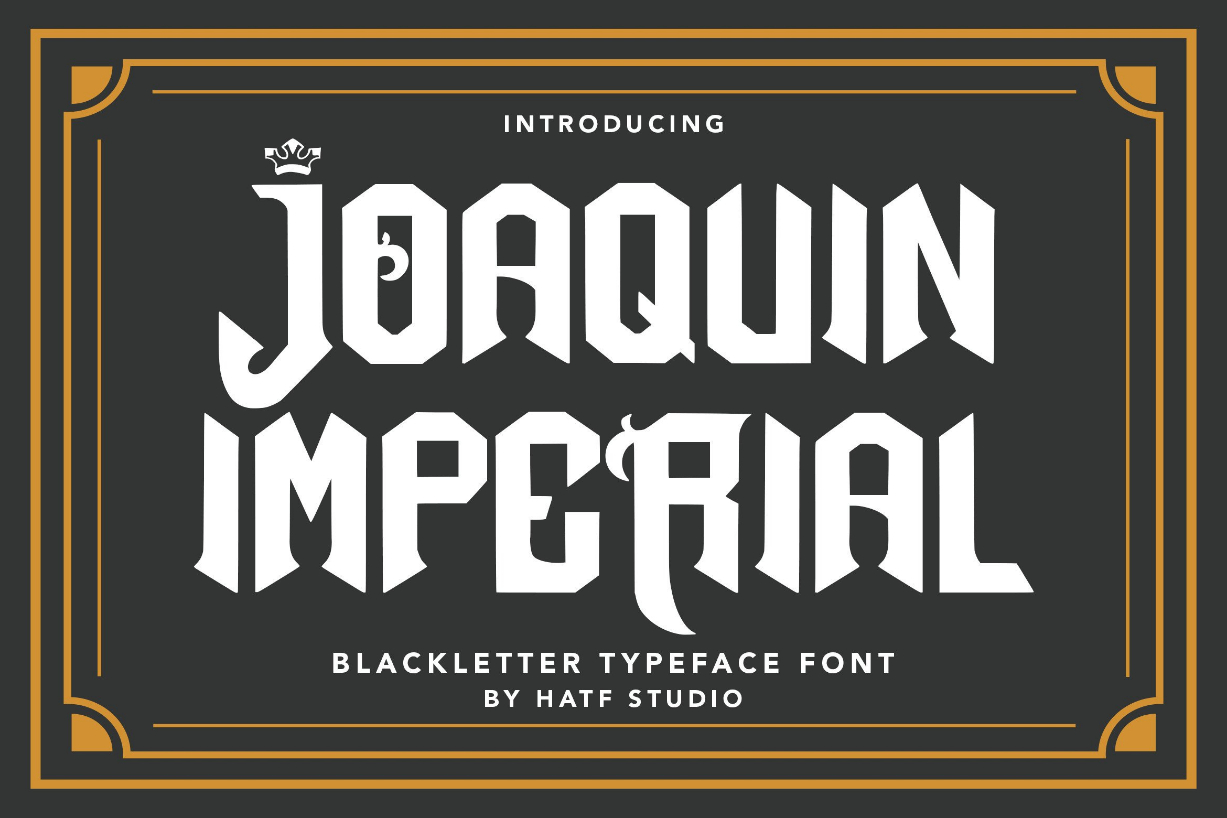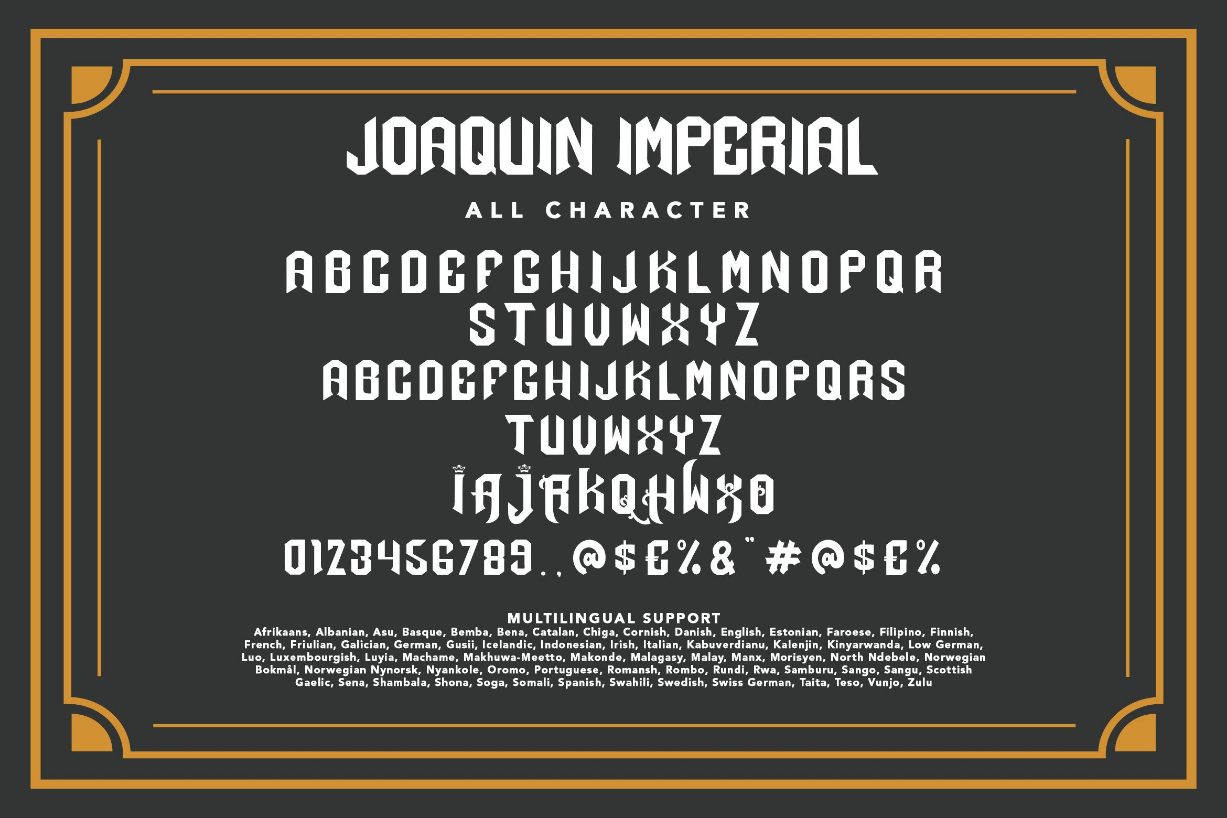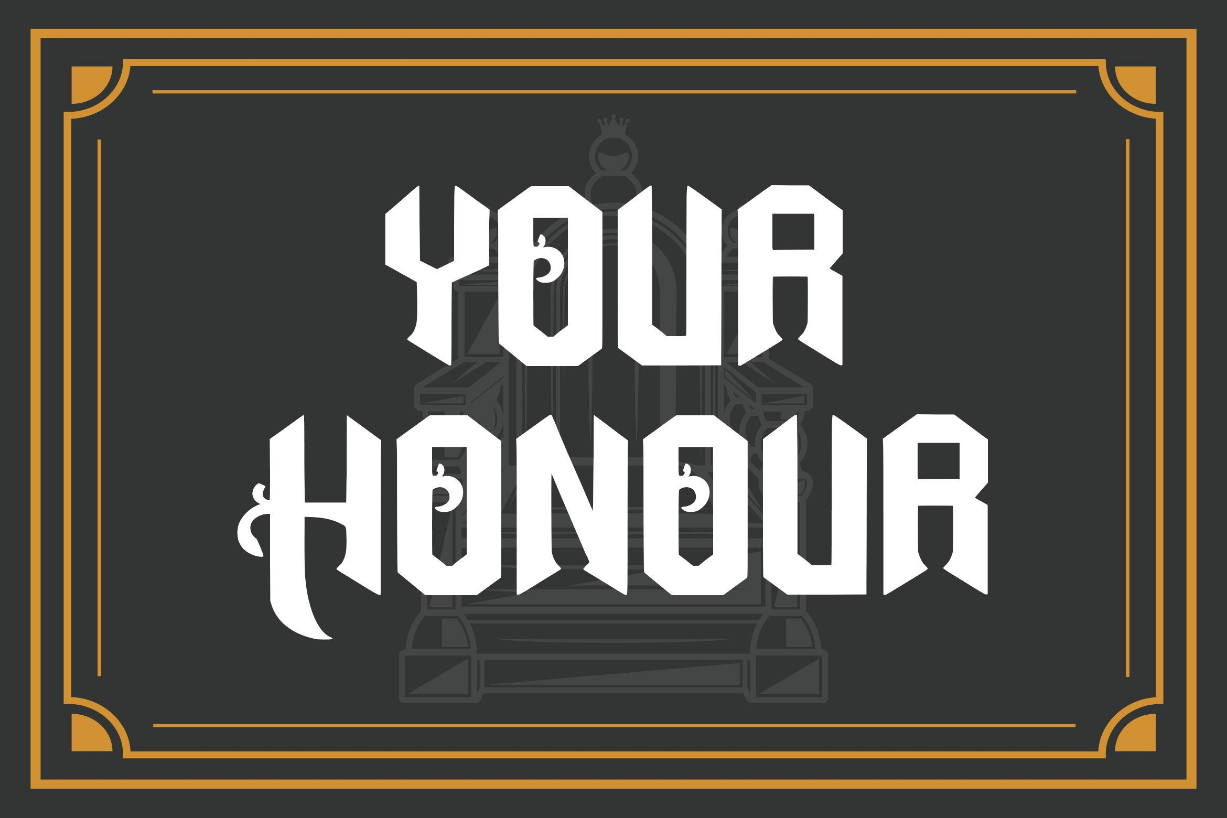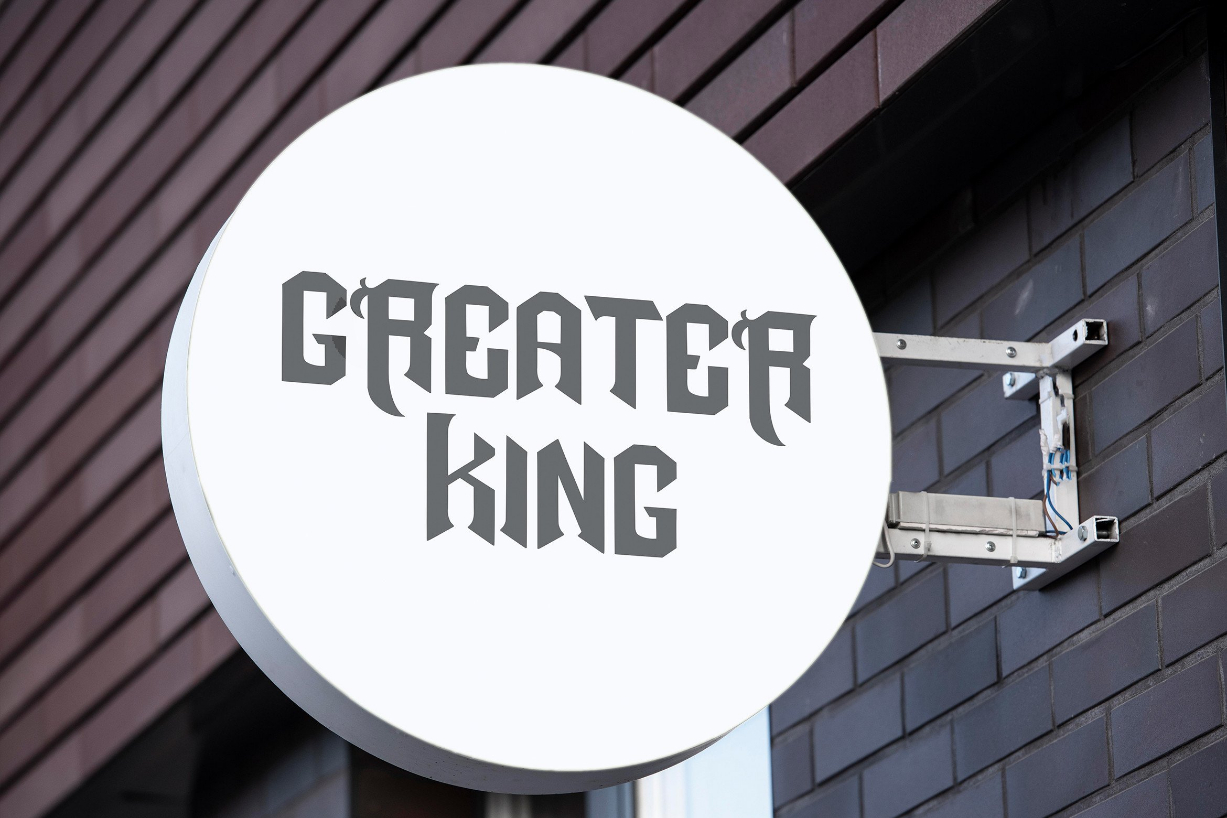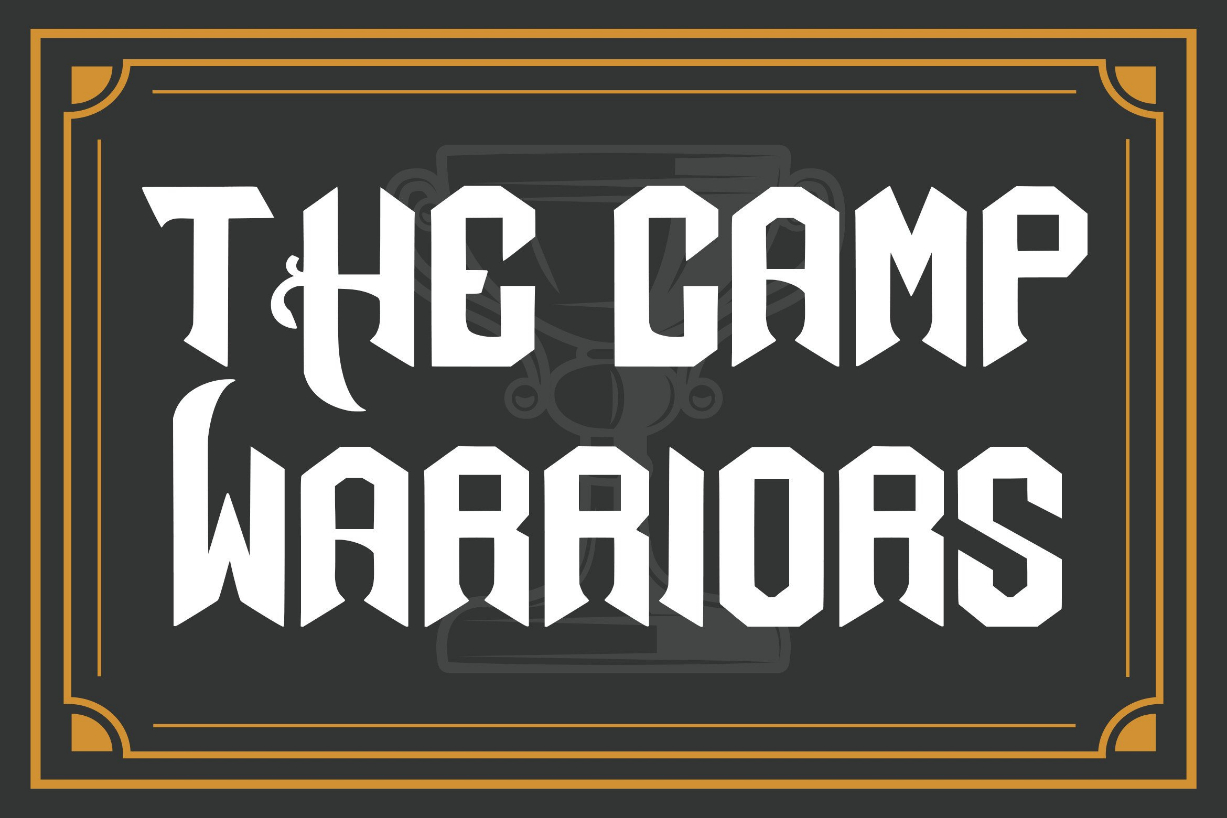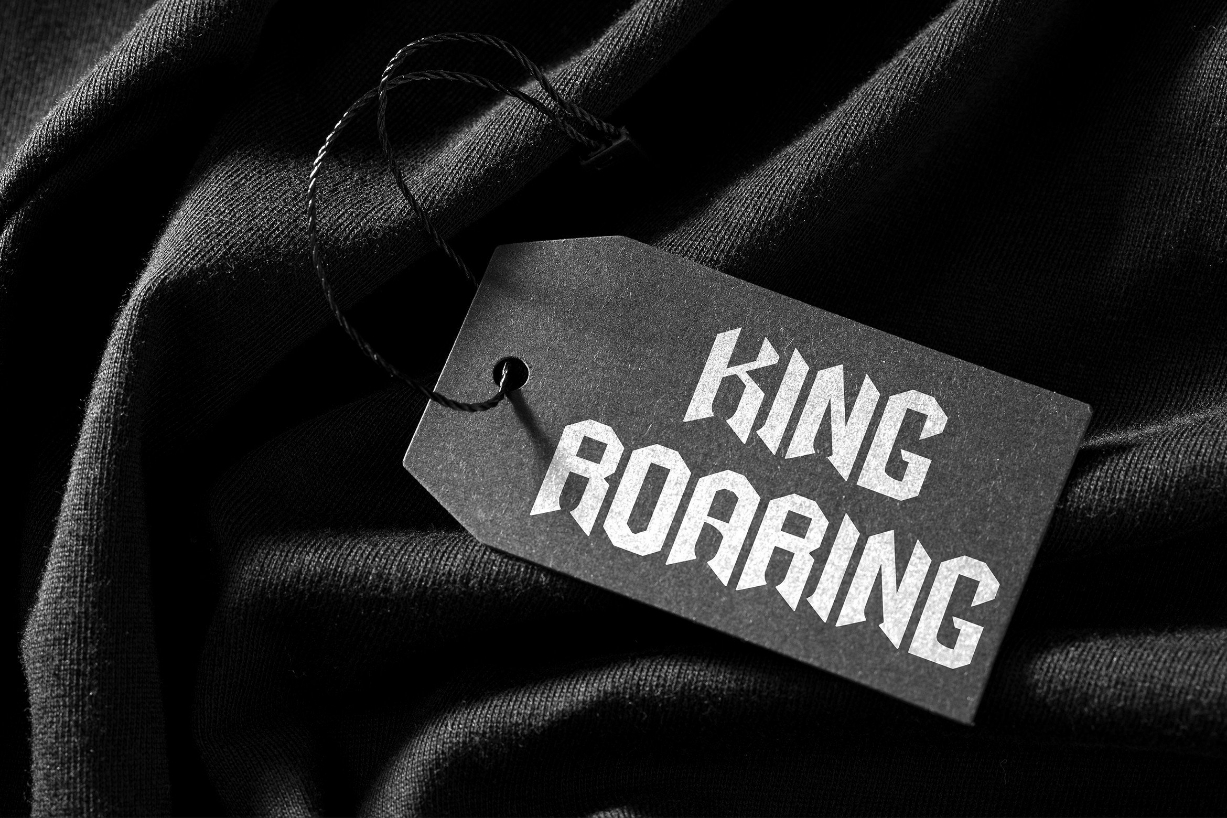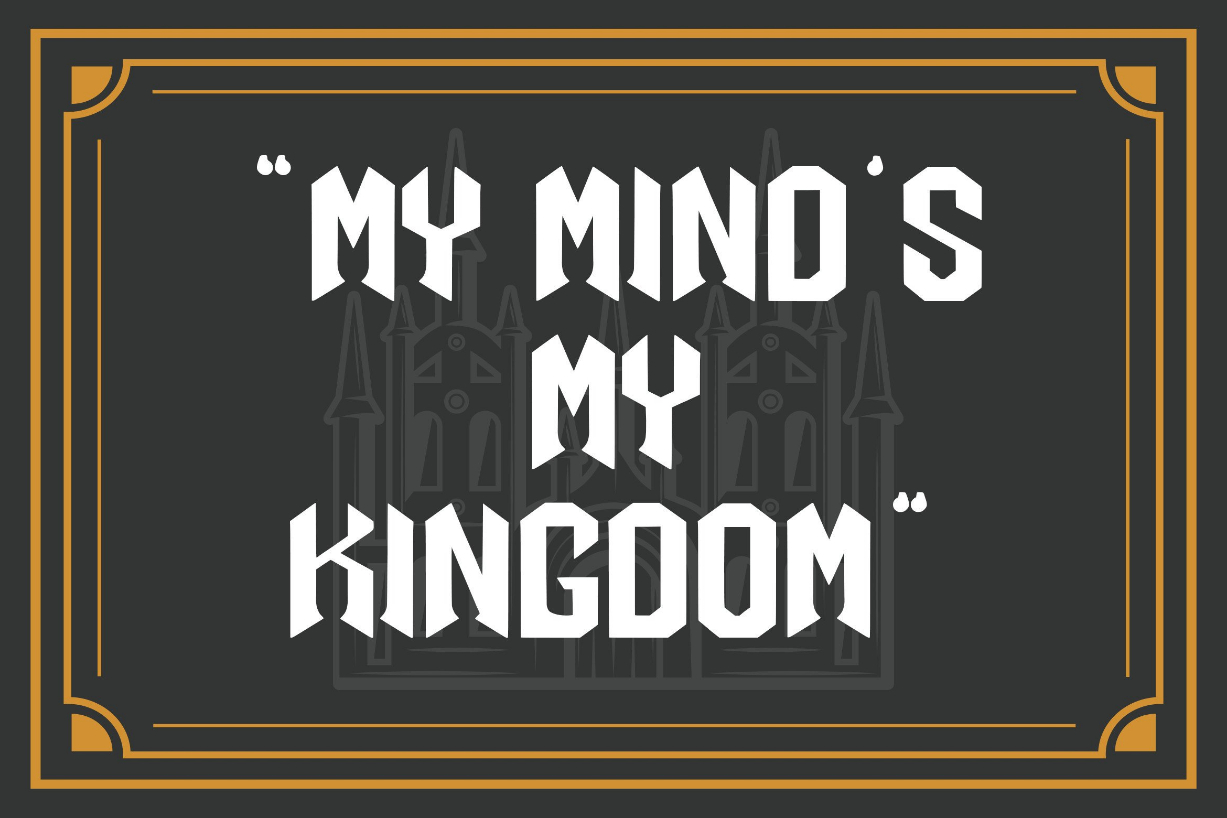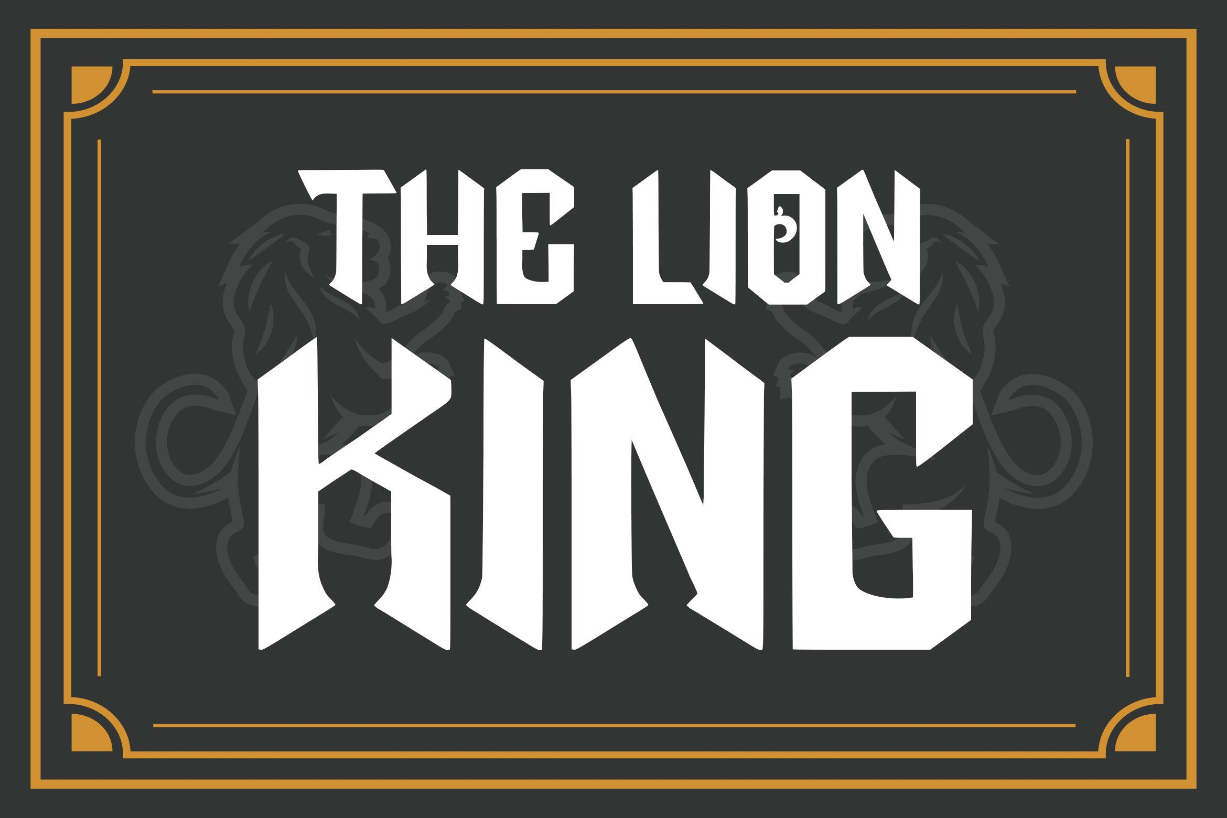
Joaquin Imperial Font
About Joaquin Imperial Font
Joaquin Imperial is a unique blackletter font. Its Gothic characters and intricate style make this typeface the perfect choice for all projects that require bold and daring typography.